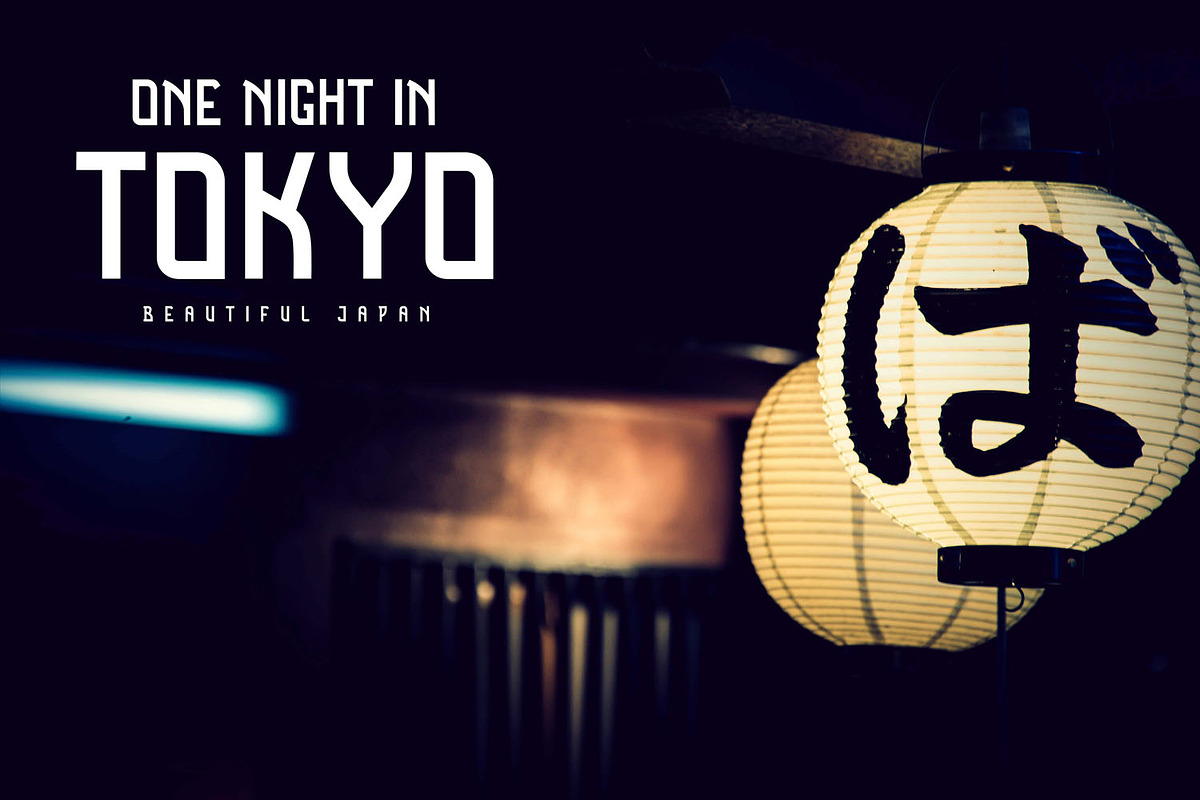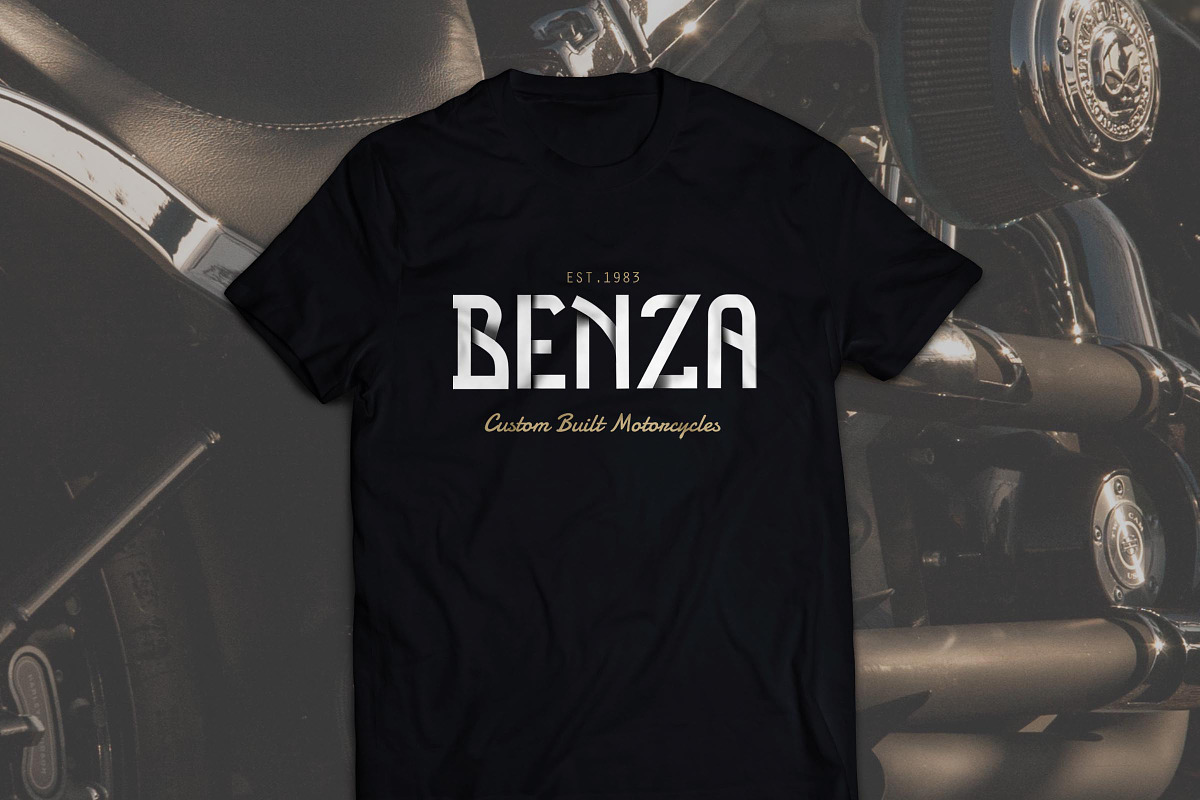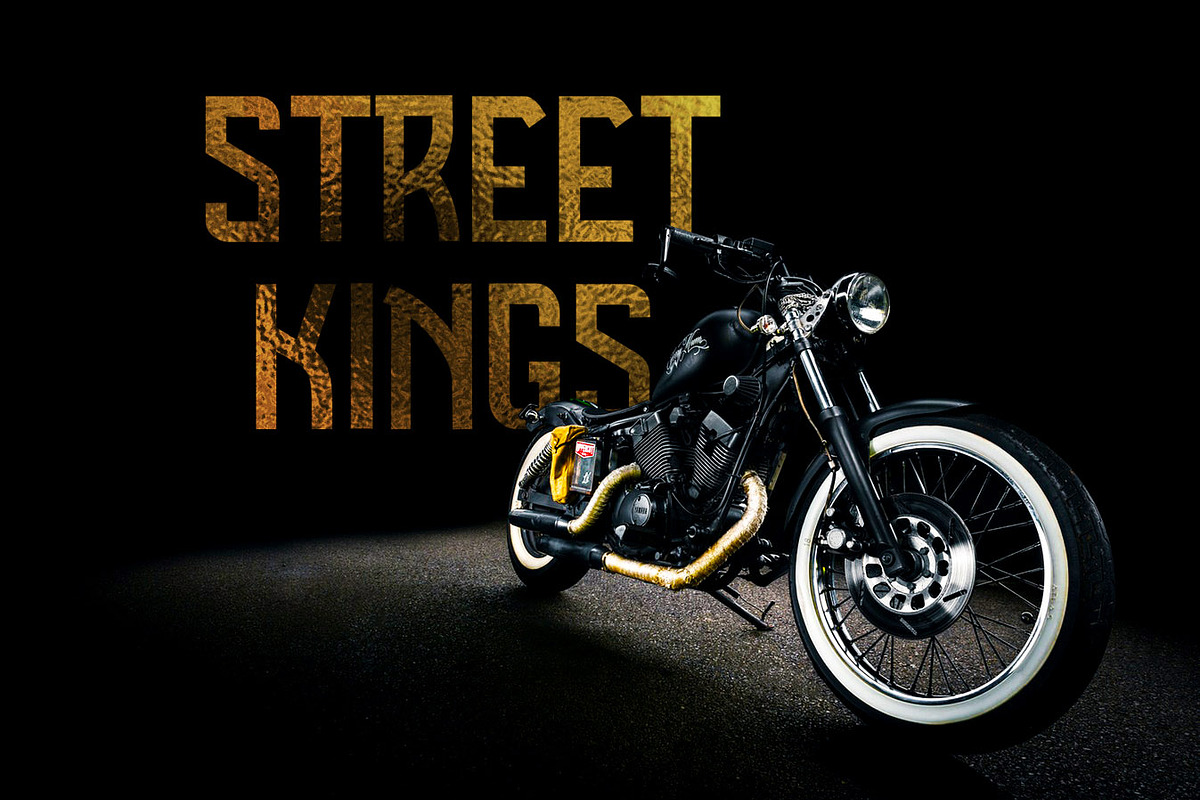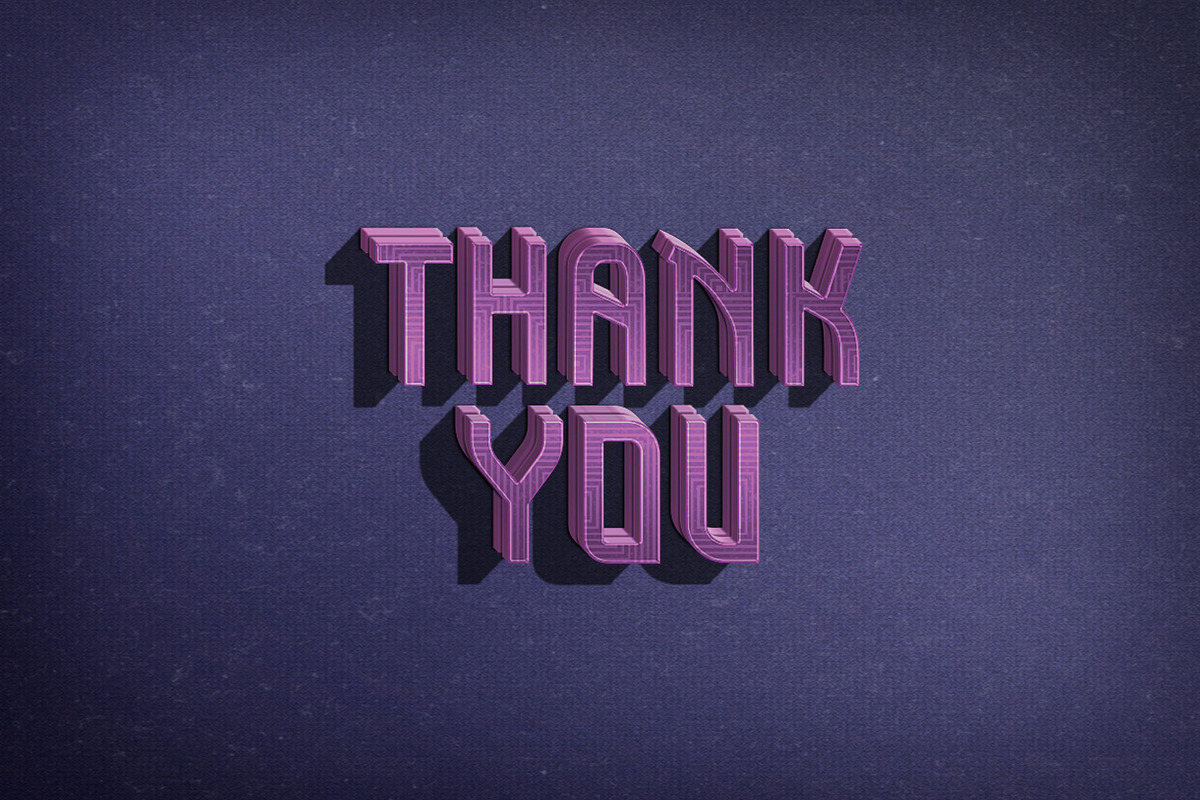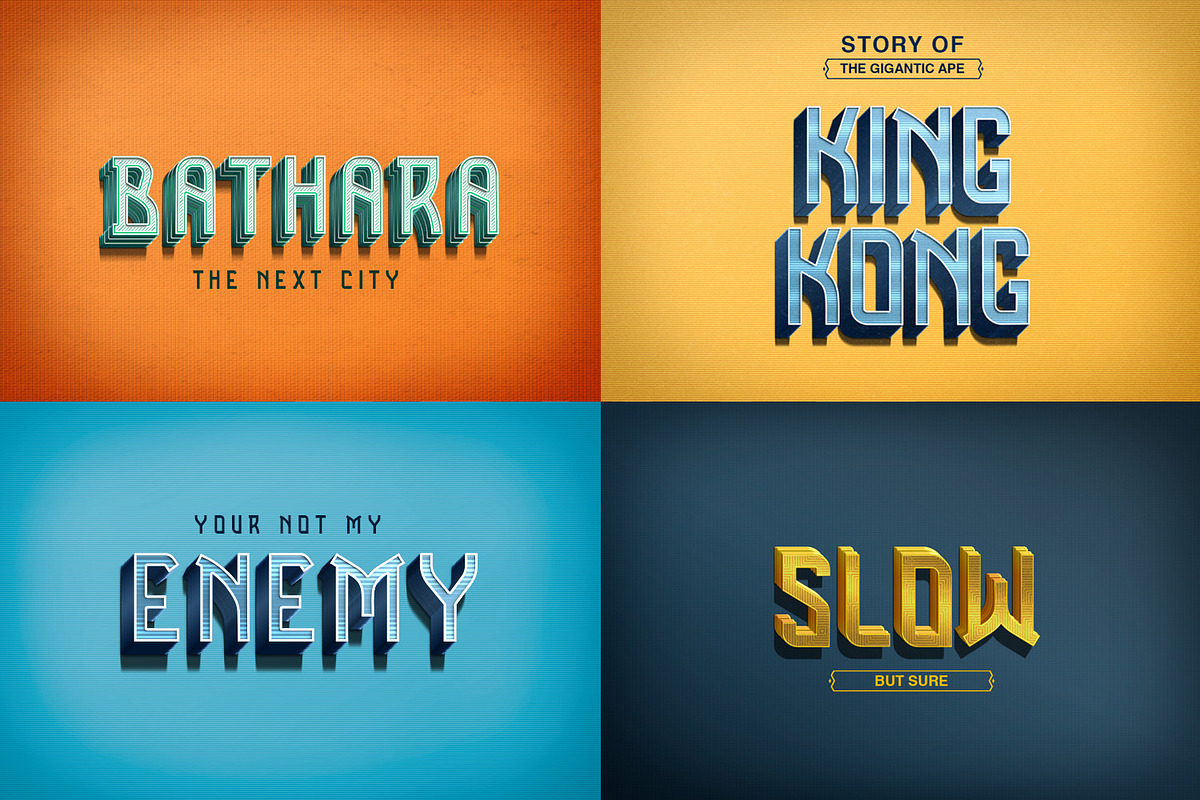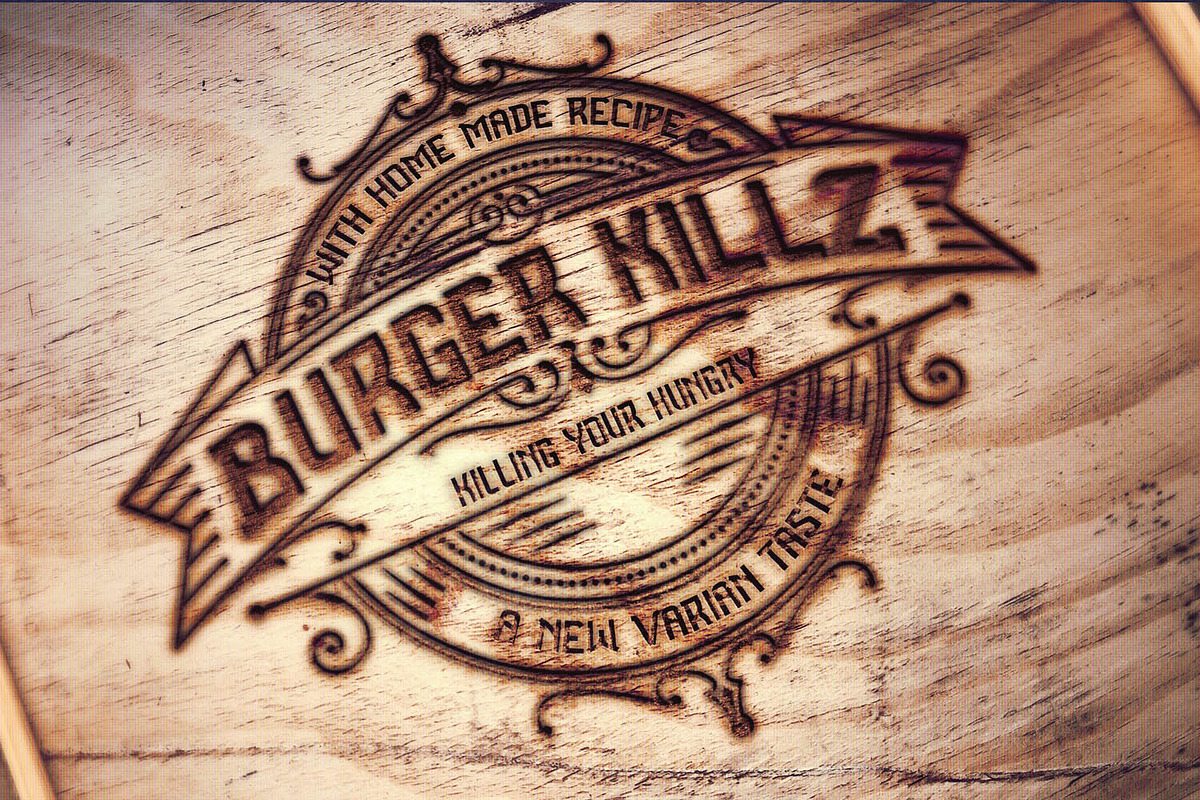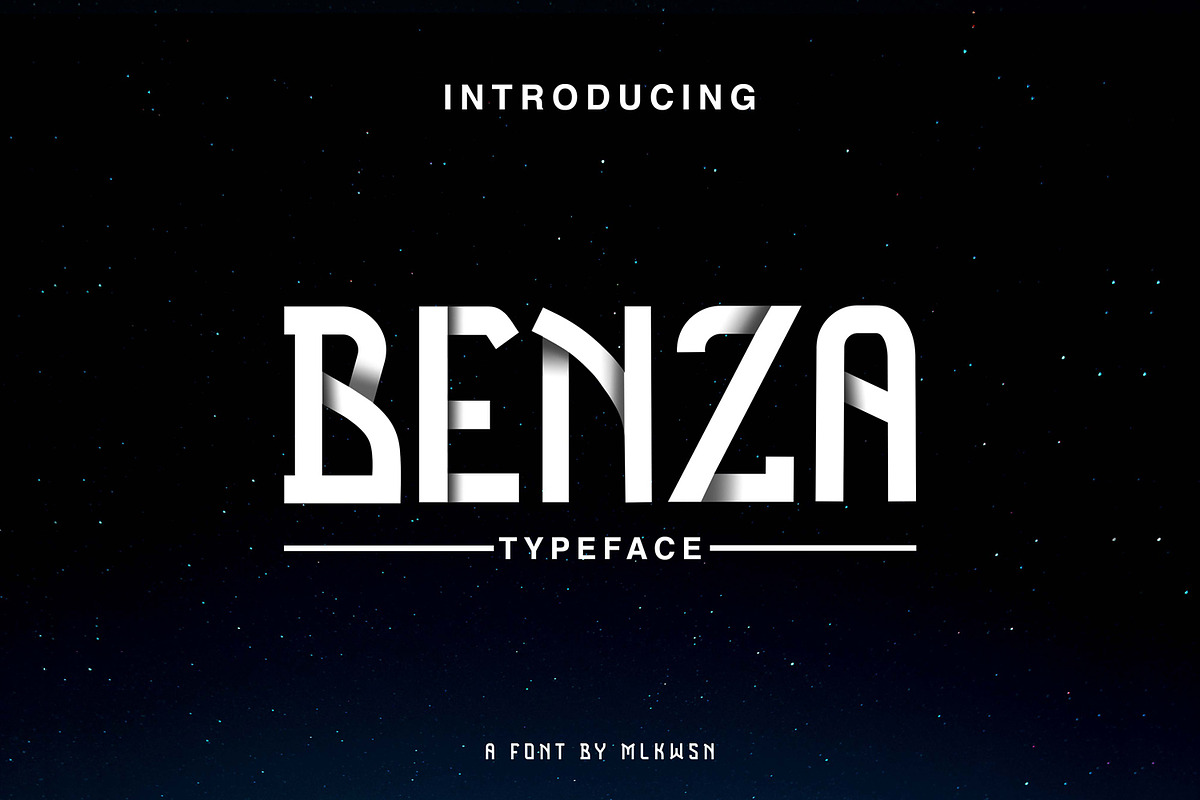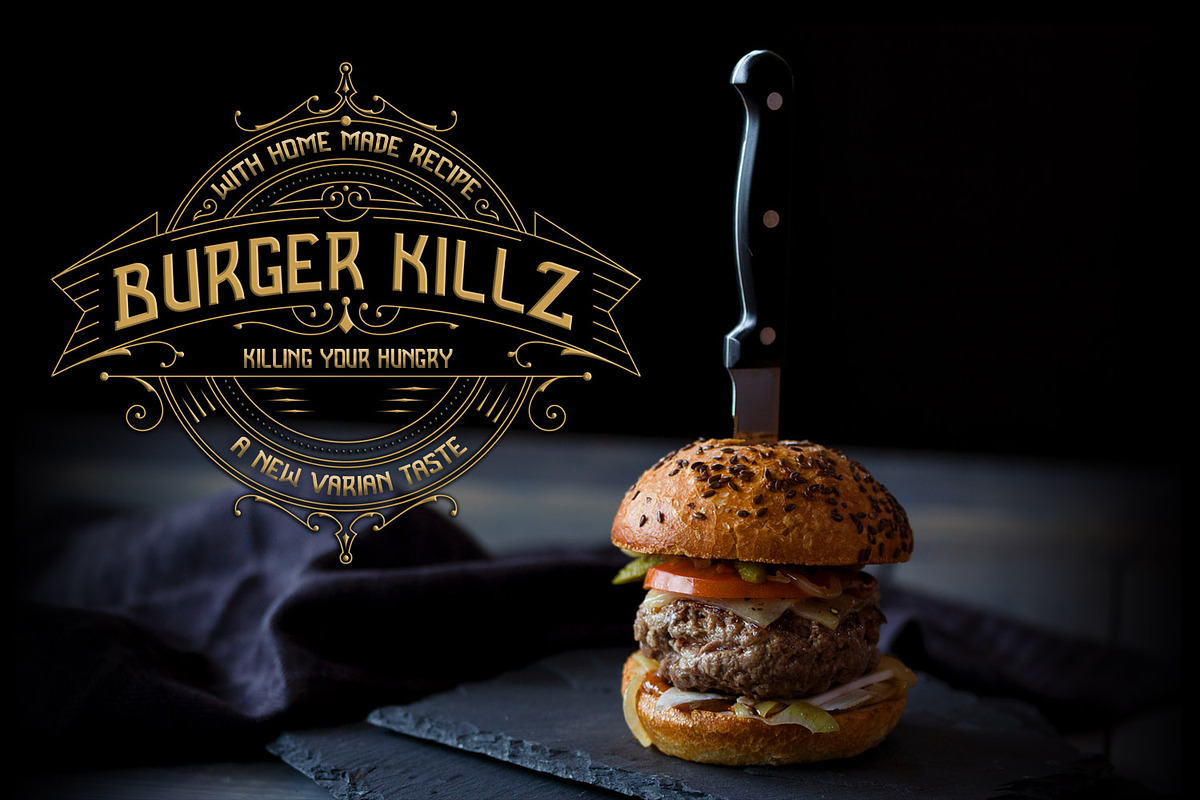
BENZA - Display Typeface
this is new font Fresh and natural best for logo product packaging,t-shirt,Tiitle and more
BENZA - Display Typeface by MLKWSN fits naturally into Branding, posters, packaging, typography.